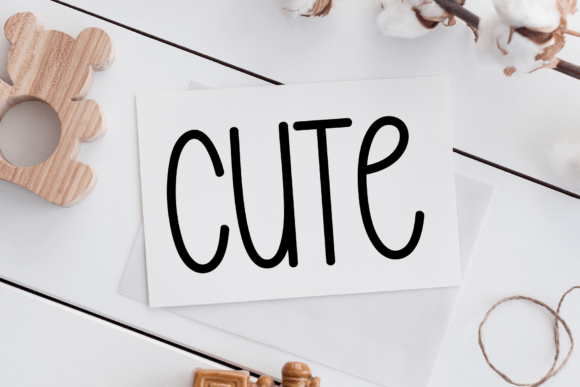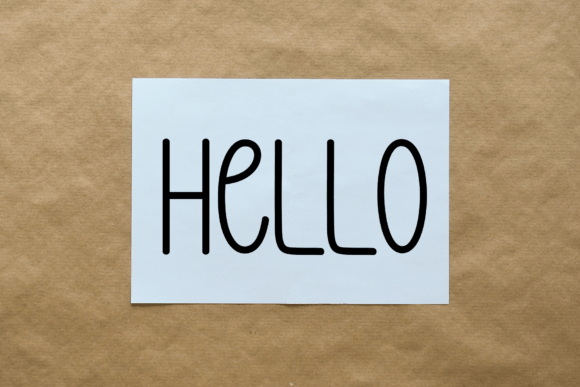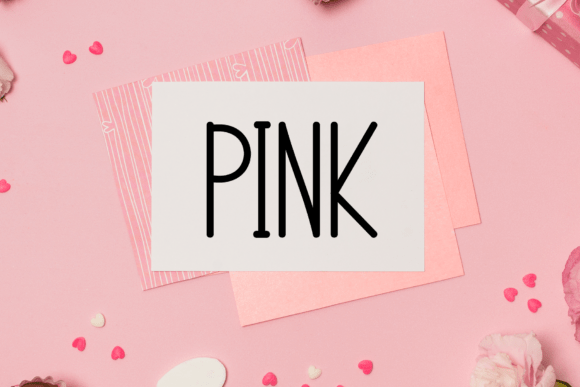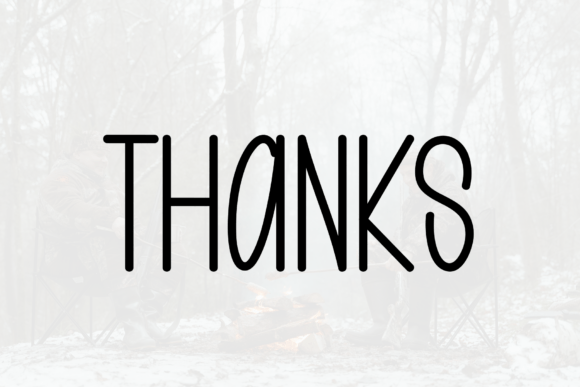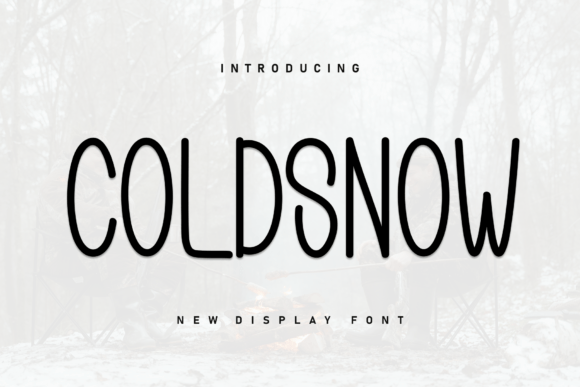
Coldsnow Font: The Perfect Handwritten Display Font for Your Design Needs
Are you looking for a font that can add a touch of elegance and sophistication to your designs while still maintaining a casual and relaxed feel? Look no further than Coldsnow Font. This beautiful handwritten display font is designed to mimic the look of marker-drawn letters, giving it a sporty and laid-back vibe that’s perfect for a wide range of design applications.
What is Coldsnow Font?
Coldsnow Font is a carefully crafted handwritten display font that is designed to help you create stunning designs with ease. Its unique marker-drawn style gives it a distinctive look that’s both luxurious and elegant, yet casual and approachable. Whether you’re working on a branding project, designing wedding supplies, or creating marketing materials, Coldsnow Font is the perfect choice.
Key Features of Coldsnow Font
• Handwritten display font: Coldsnow Font is a beautifully designed handwritten display font that’s perfect for headlines, titles, and short text passages.
• Marker-drawn style: The font’s marker-drawn style gives it a relaxed and sporty feel that’s perfect for designs that need a casual touch.
• Luxurious and elegant: Despite its casual feel, Coldsnow Font has a luxurious and elegant quality that makes it perfect for high-end designs.
• Versatile: Coldsnow Font can be used for a wide range of design applications, including branding, logos, wedding supplies, greeting cards, fashion, lookbooks, and marketing promotions.
Design Applications for Coldsnow Font
Coldsnow Font is an incredibly versatile font that can be used for a wide range of design applications. Here are some ideas to get you started:
• Branding: Use Coldsnow Font to create a unique and memorable brand identity that stands out from the crowd.
• Logos: Coldsnow Font is perfect for creating logos that need a touch of elegance and sophistication.
• Wedding supplies: Add a touch of luxury to your wedding designs with Coldsnow Font, perfect for invitations, programs, and more.
• Greeting cards: Use Coldsnow Font to create beautiful and heartfelt greeting cards for any occasion.
• Fashion: Coldsnow Font is perfect for fashion designs that need a touch of elegance and sophistication, such as lookbooks and marketing materials.
Why Choose Coldsnow Font?
So why choose Coldsnow Font for your design needs? Here are just a few reasons:
• Unique style: Coldsnow Font has a unique and distinctive style that’s sure to make your designs stand out.
• High-quality design: Coldsnow Font is carefully crafted to ensure that it’s both beautiful and functional.
• Versatile: Coldsnow Font can be used for a wide range of design applications, making it a great addition to any designer’s toolkit.
If you’re looking for a beautiful and versatile handwritten display font that can add a touch of elegance and sophistication to your designs, look no further than Coldsnow Font. With its unique marker-drawn style and luxurious feel, Coldsnow Font is perfect for a wide range of design applications, from branding and logos to wedding supplies and marketing materials. So why wait? Download Coldsnow Font today and start creating stunning designs that will leave a lasting impression.